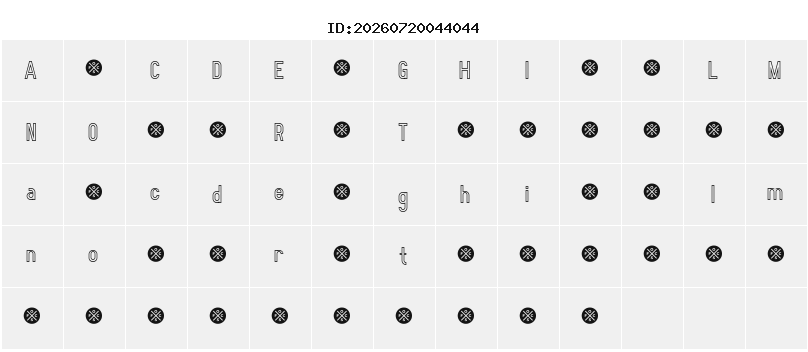
Elegrand Gothic Inline Demo Preview
• Font Name: Elegrand Gothic Inline Demo
• Full Font Name: Elegrand Gothic Inline Demo
• Designer: Out Of Step Font Company
• Description: Ruben Gothic Inline:Version 1.001
About Elegrand Gothic Inline Demo.ttf
Elegrand Gothic Inline Demo.ttf is a modern, elegant sans-serif font designed for ultimate readability and visual harmony. Perfect for branding, headlines, web design, and print materials.